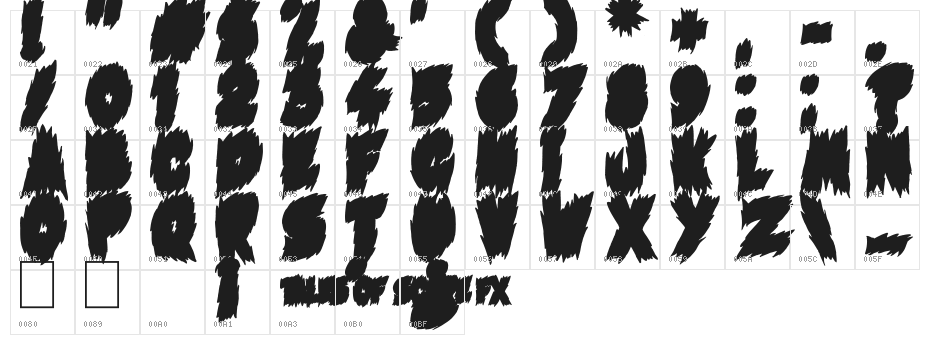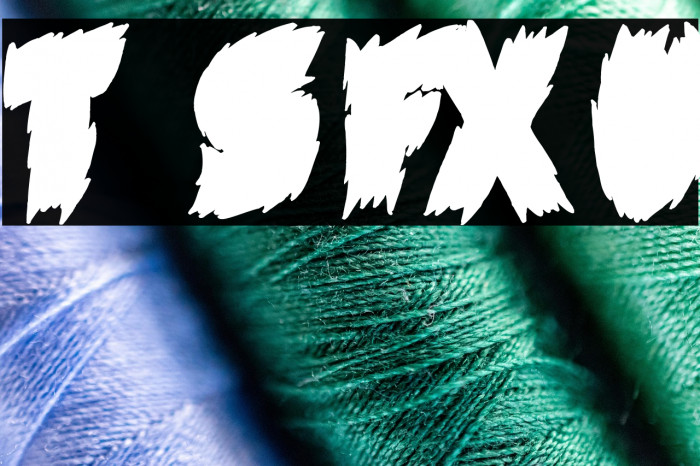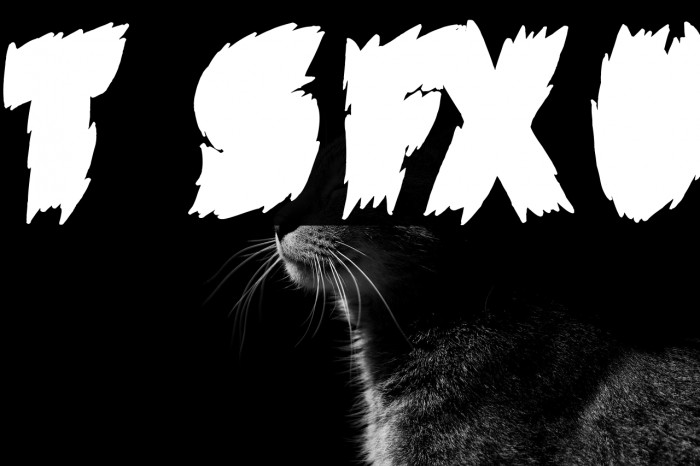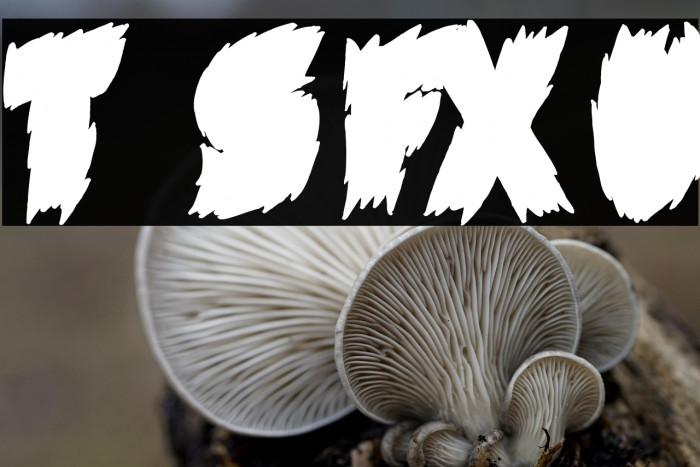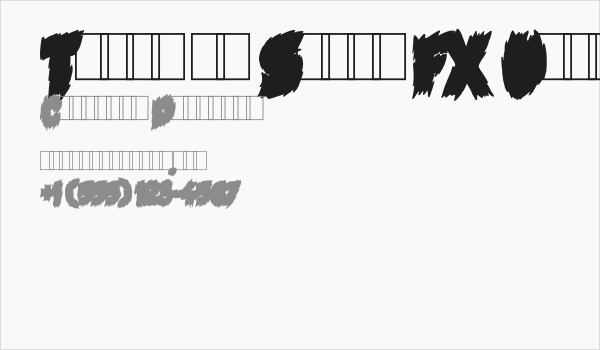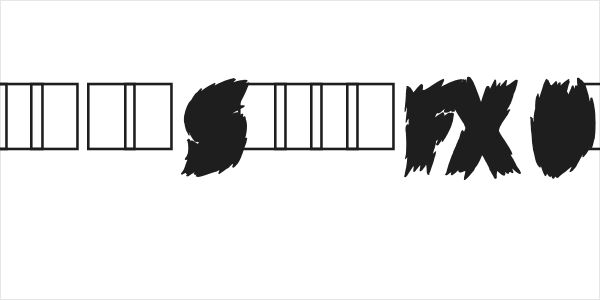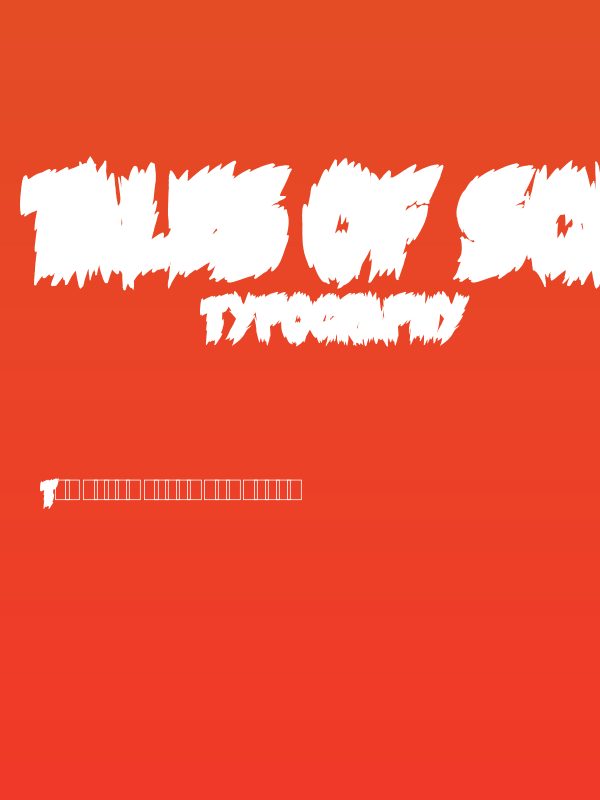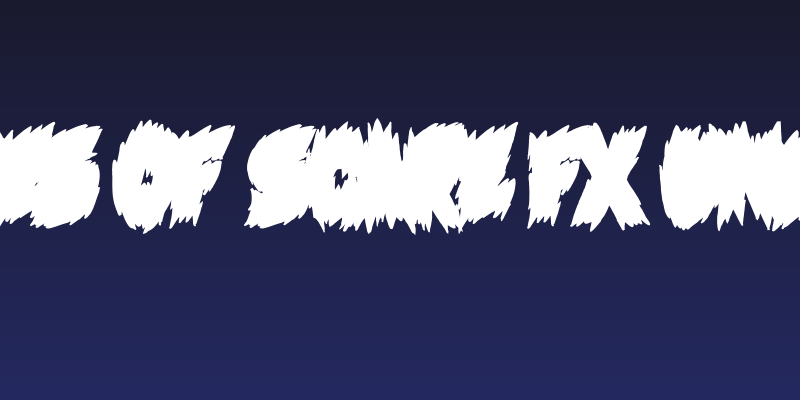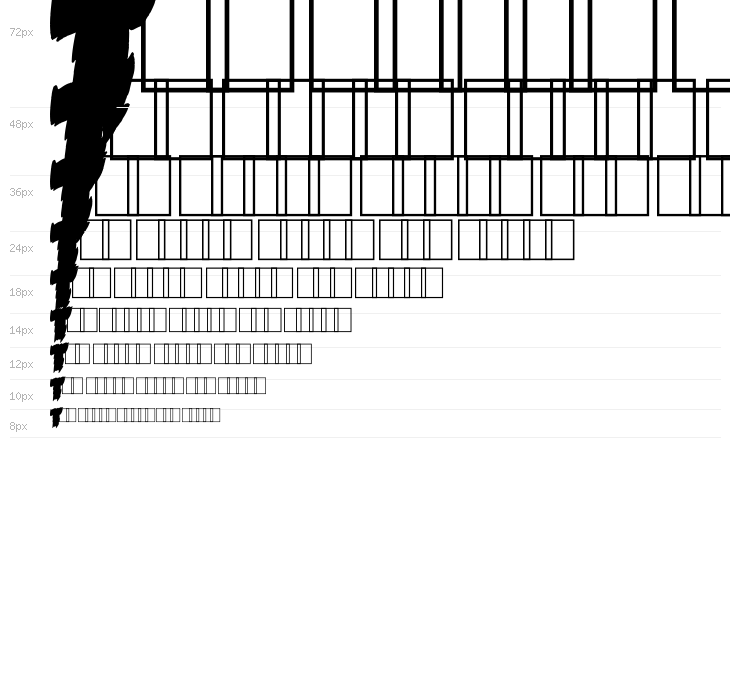
Tales of Scare FX Under Font
Tales of Scare FX Under Description
This font features a bold and jagged design, reminiscent of horror or thriller themes. The characters are heavily stylized with sharp, irregular edges, creating a sense of movement and intensity. The uppercase and lowercase letters maintain a consistent style, with exaggerated forms that suggest a chaotic or distressed aesthetic. The numbers and special characters follow the same design principles, ensuring uniformity across the font. This font is ideal for projects that require a dramatic and eye-catching typeface, such as posters, book covers, or Halloween-themed materials.